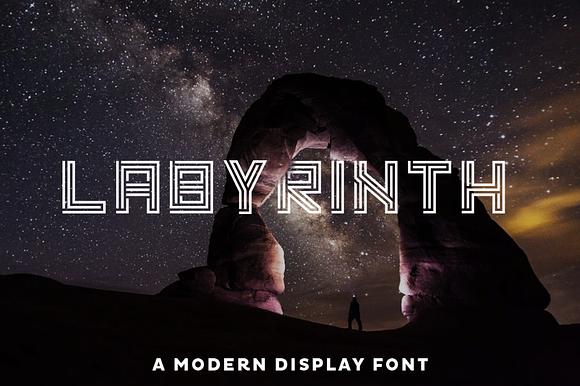
Labyrinth Font
Labyrinth it's a sophisticated font useful for creating monograms, headers, headlines and more content.
Labyrinth Font by Brandspark Mini fits naturally into Branding, posters, packaging, typography.